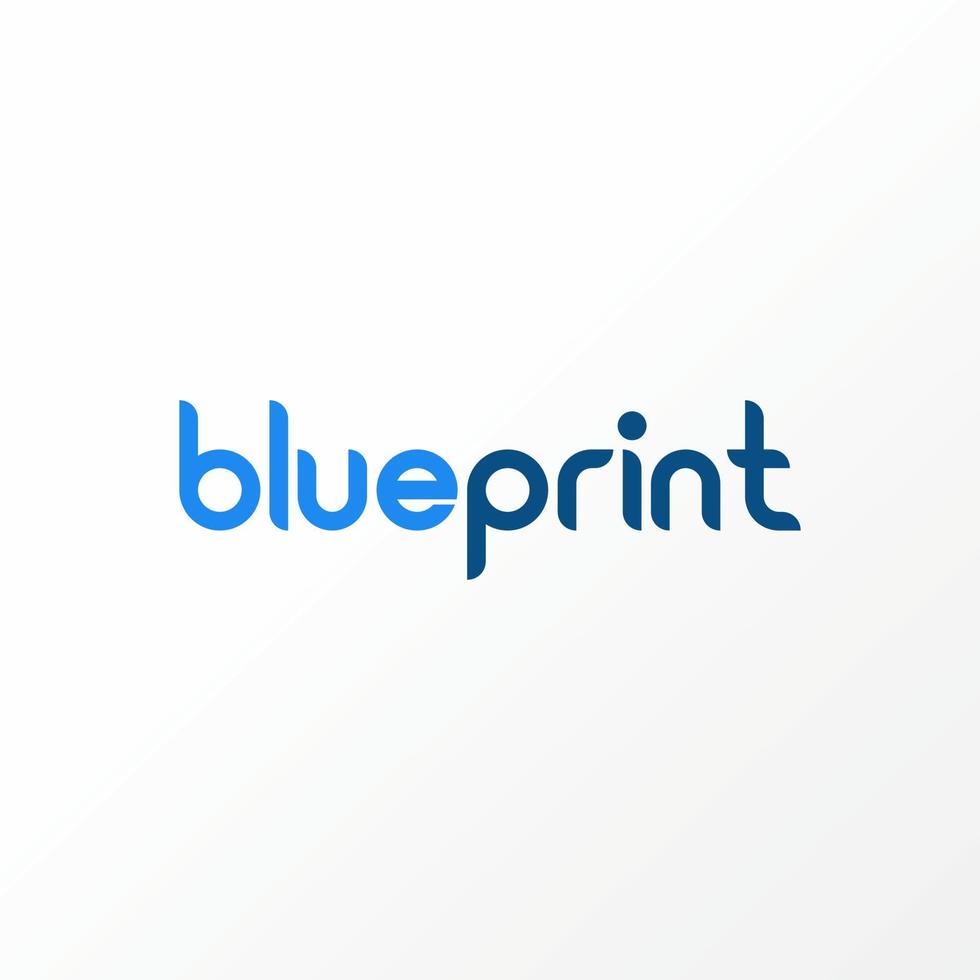
Simple and unique letter or writing BLUEPRINT sans serif font image graphic icon logo design abstract concept vector stock. Can be used as a symbol related to initial or wordmark Pro Vector